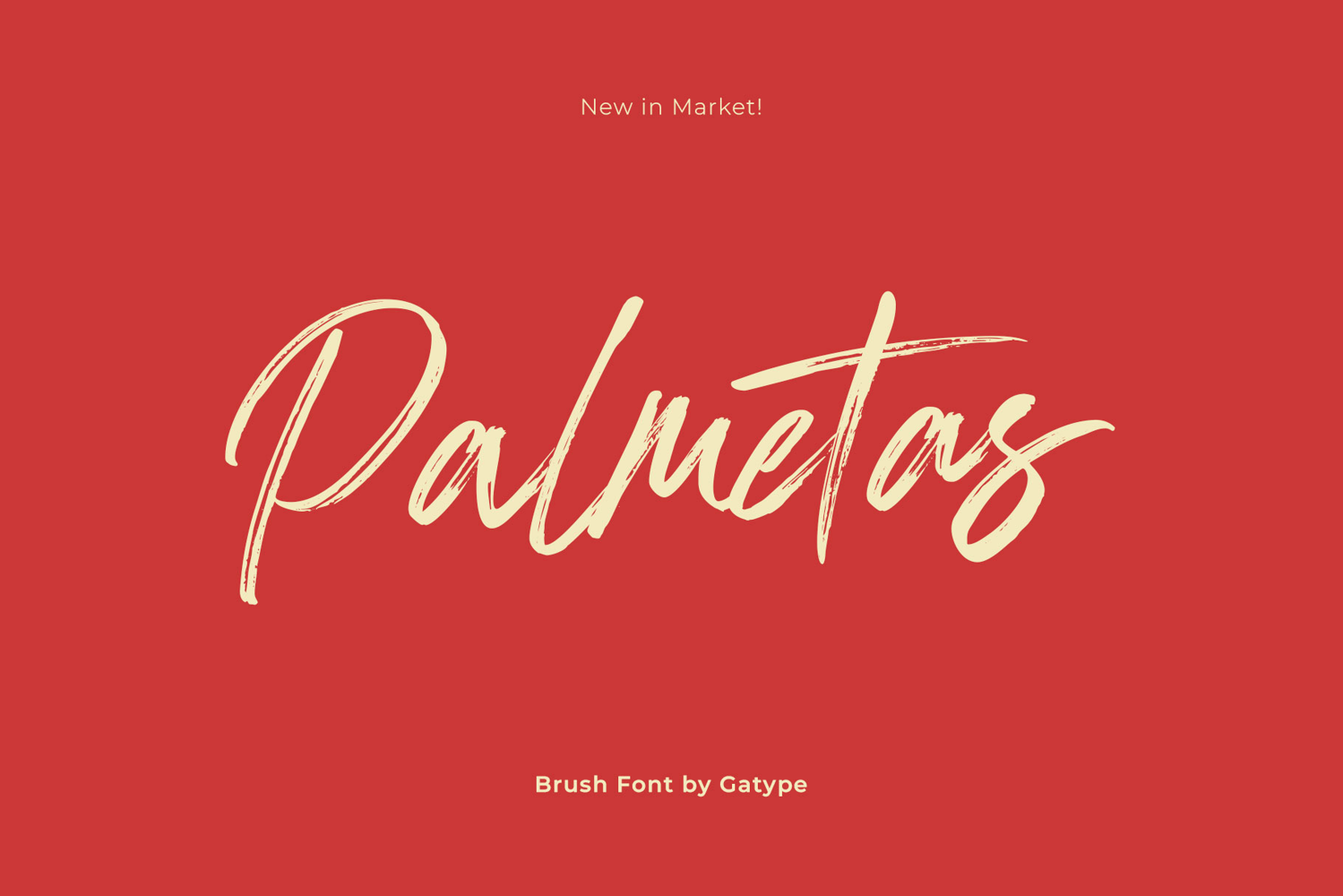
Palmetas Brush – Playful Brush Stroke Font
Palmetas Brush is a playful brush font perfect for modern, trendy designs. Whether you're working on social media content, fun branding, product packaging, apparel, or event posters — this font adds an energetic and handcrafted feel to your layout.
With expressive brush strokes and a casual vibe, Palmetas makes your design stand out while keeping things fresh and stylish.